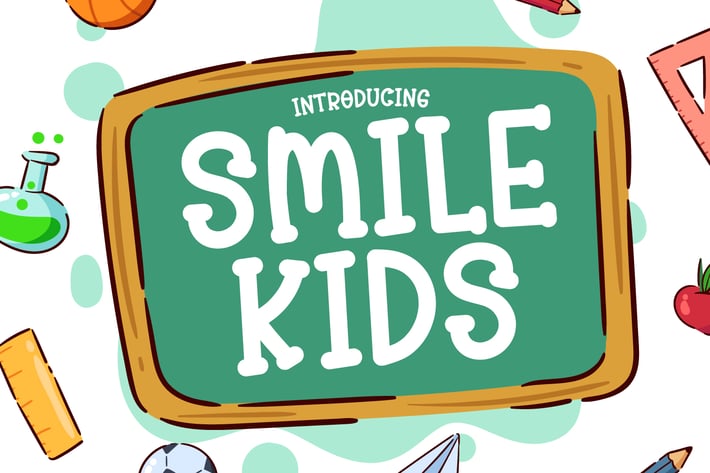
Smile Kids - Kids Display Font
Introducing Smile Kids - Kids Display Font
Smile Kids is a cute and friendly display font. It embodies playfulness and authenticity and is the perfect choice for any children activity or school project.